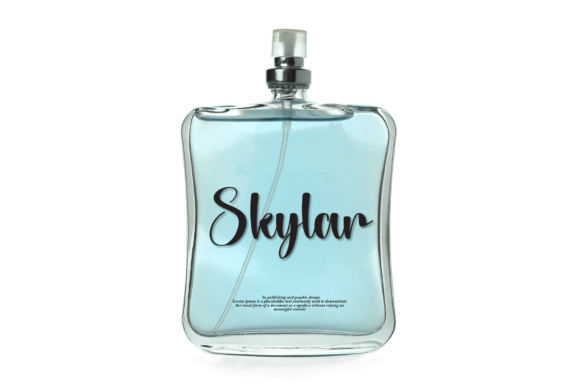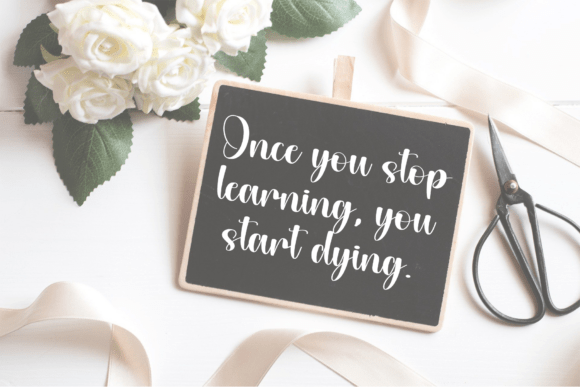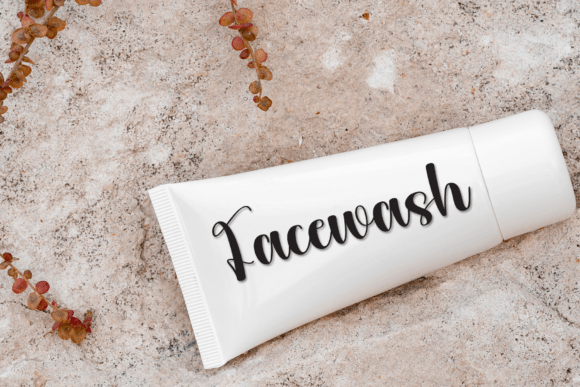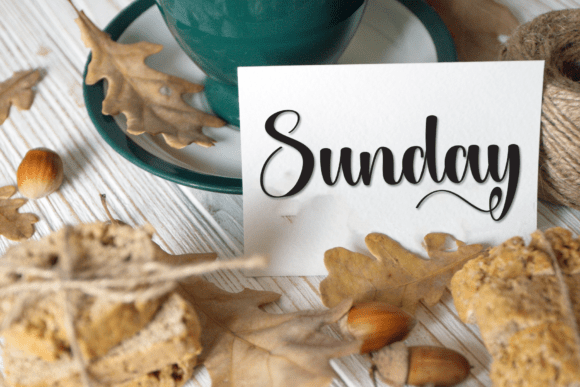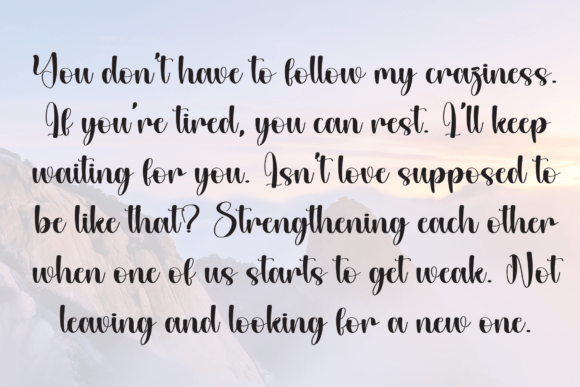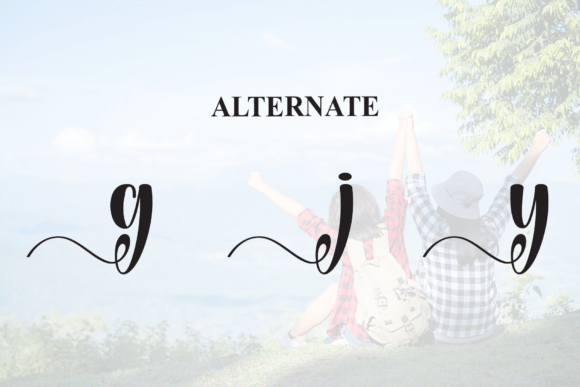
Introduction to Joyful Holiday Font Font
Fonts play a crucial role in design, and the Joyful Holiday Font font is a typeface that brings both character and versatility to any project. Whether you’re working on a branding project, a website, or a print design, the Joyful Holiday Font font offers a unique style that can elevate your work.
Joyful Holiday is a magical script font carefully created with a touch of elegance.
Key Features of Joyful Holiday Font Font
Why Choose Joyful Holiday Font Font?
The Joyful Holiday Font font is more than just a typeface β it’s a design tool that helps you communicate your message with style and clarity. Its unique character set and versatile design make it suitable for a wide range of applications, from elegant invitations to bold headlines.
With its carefully crafted letterforms and balanced proportions, the Joyful Holiday Font font ensures readability and visual appeal across all mediums.
What makes Joyful Holiday Font font special?
The Joyful Holiday Font font stands out with its unique design, exceptional readability, and versatility across various design applications.